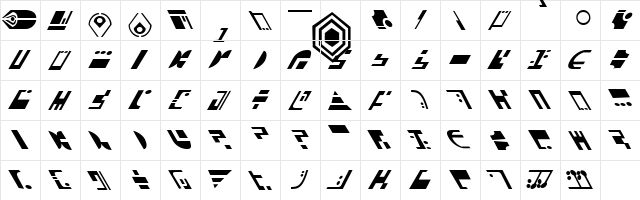
StarTrek ferengi R engi 1R
Design Context for StarTrek ferengi R Typeface
StarTrek ferengi R is a composed and adaptable typeface that performs quietly and consistently across a wide range of design contexts.